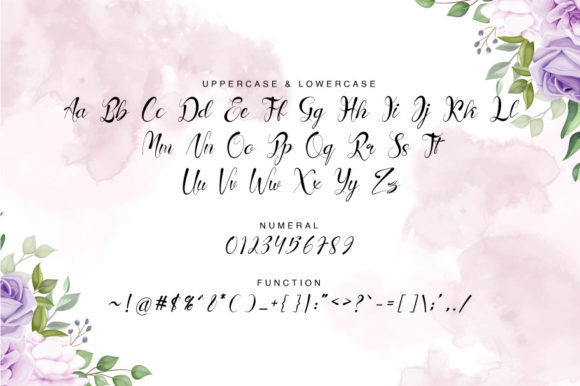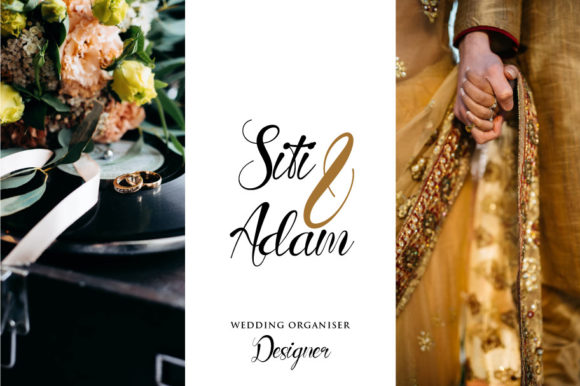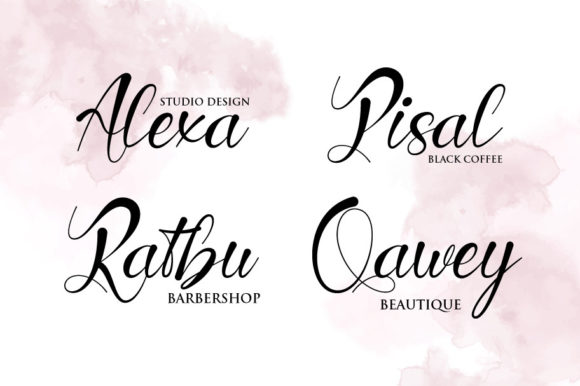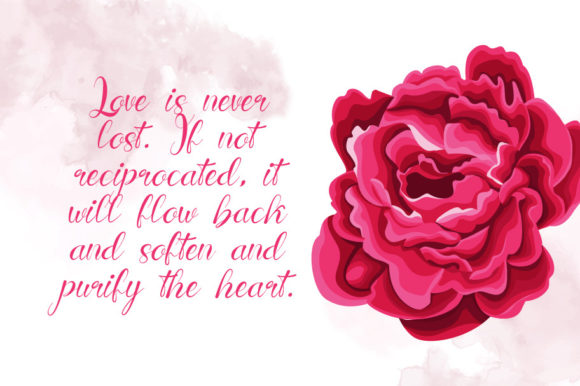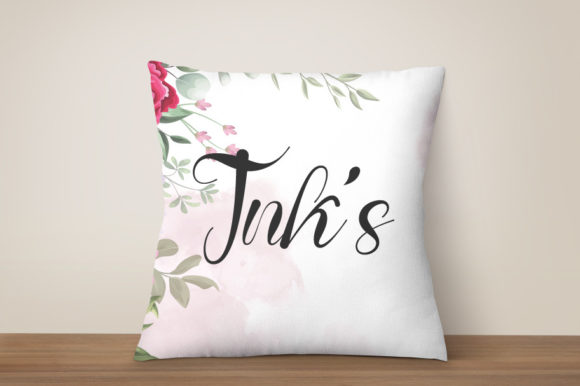
Adost Font: Elevate Your Designs with Elegance and Sophistication
In the world of typography, fonts play a crucial role in conveying the tone and personality of a design. For those seeking a script font that embodies elegance and class, Adost Font is an exceptional choice. This lovely and delicate font is specifically crafted to add a refreshing and beautiful look to your designs, making it perfect for designers and crafters looking to elevate their work.
What is Adost Font?
Adost Font is a carefully crafted script font that boasts a unique and captivating style. Its delicate strokes and elegant curves make it an ideal choice for designs that require a touch of sophistication and refinement. Whether you’re working on a branding project, wedding invitation, or social media graphics, Adost Font is sure to impress.
Key Features of Adost Font
- Elegant and Delicate: Adost Font features delicate strokes and elegant curves, giving it a refined and sophisticated look.
- Script Style: This font boasts a beautiful script style that’s perfect for adding a touch of elegance to your designs.
- Refreshing and Beautiful: Adost Font is designed to add a refreshing and beautiful look to your designs, making it perfect for a wide range of projects.
- Highly Versatile: This font is suitable for various design projects, including branding, advertising, packaging, and more.
Uses of Adost Font
Adost Font is an incredibly versatile font that can be used in a variety of design projects. Here are some of the most popular uses of this beautiful font:
- Branding and Logo Design: Adost Font is perfect for creating elegant and sophisticated brand logos that make a lasting impression.
- Wedding and Event Invitations: This font is ideal for designing beautiful and elegant wedding invitations, save-the-date cards, and other event materials.
- Social Media Graphics: Adost Font can be used to create stunning social media graphics, including Facebook posts, Instagram stories, and Twitter headers.
- Packaging Design: This font is suitable for packaging design, adding a touch of elegance and sophistication to product labels and packaging materials.
Why Choose Adost Font?
With so many fonts available, why choose Adost Font? Here are a few reasons why this font stands out from the rest:
- Unique and Captivating: Adost Font features a unique and captivating style that’s sure to grab attention.
- Elegant and Refined: This font boasts an elegant and refined look that’s perfect for designs that require sophistication and class.
- Easy to Read: Adost Font is highly legible, making it easy to read and understand.
- High-Quality: This font is crafted with high-quality techniques, ensuring that it looks great in any design.
Tips for Using Adost Font
To get the most out of Adost Font, here are a few tips to keep in mind:
- Use it Sparingly: Adost Font is a delicate font, so use it sparingly to avoid overwhelming your design.
- Pair it with Other Fonts: This font pairs well with other fonts, so experiment with different combinations to find the perfect look.
- Adjust the Size: Adjust the size of Adost Font to create visual hierarchy and add emphasis to important text.
- Experiment with Colors: This font looks great in a variety of colors, so experiment with different colors to find the perfect match for your design.
In conclusion, Adost Font is a beautiful and elegant script font that’s perfect for designers and crafters looking to elevate their work. With its delicate strokes, elegant curves, and refreshing look, this font is sure to impress. Whether you’re working on a branding project, wedding invitation, or social media graphics, Adost Font is an exceptional choice. So why wait? Download Adost Font today and add a touch of elegance and sophistication to your designs!